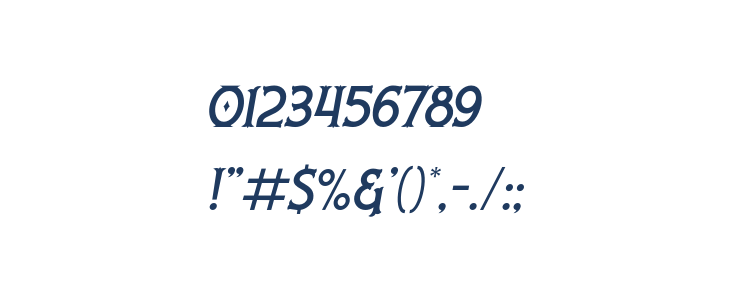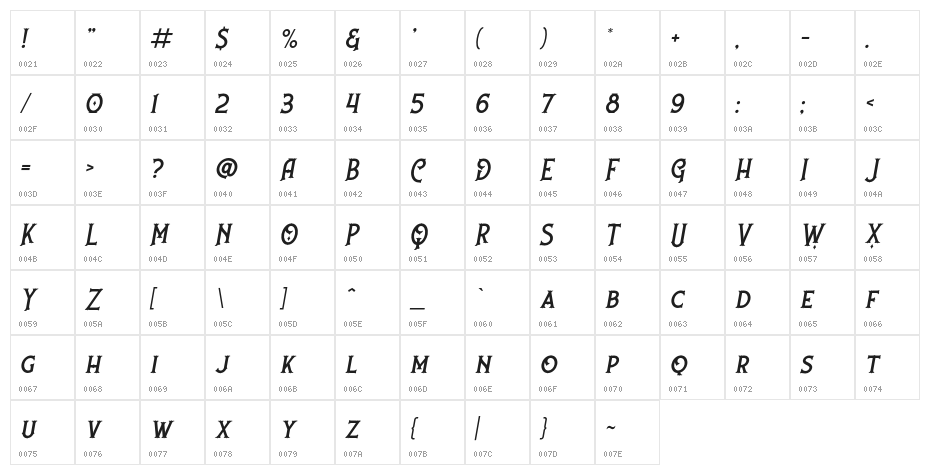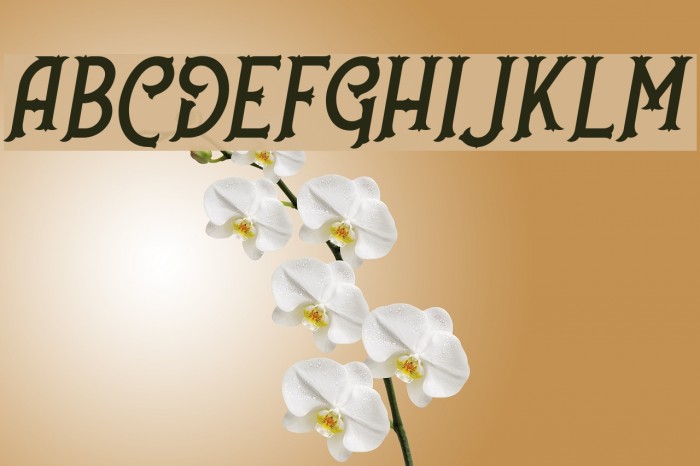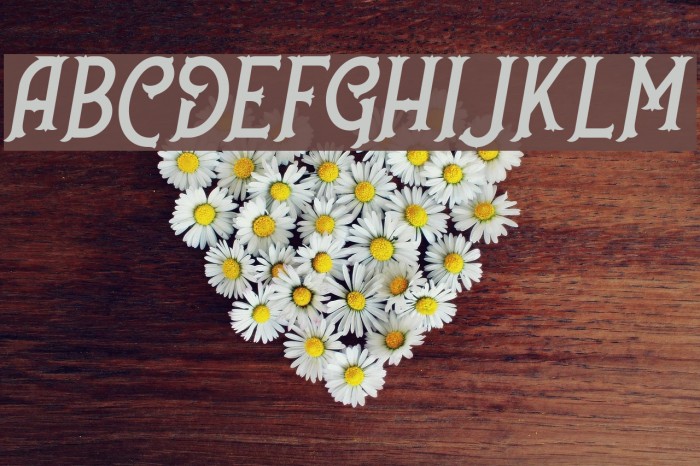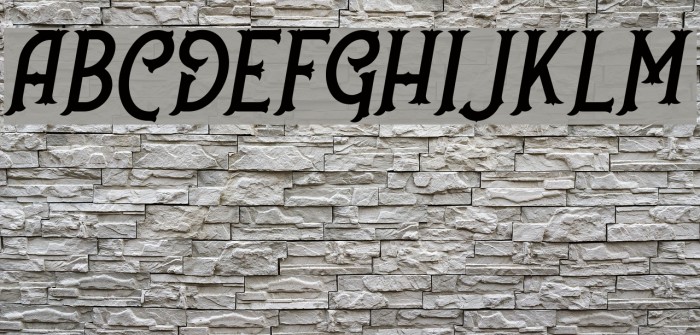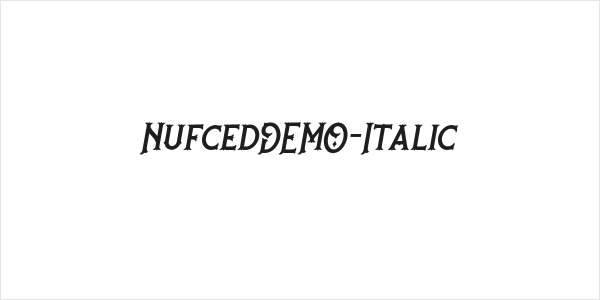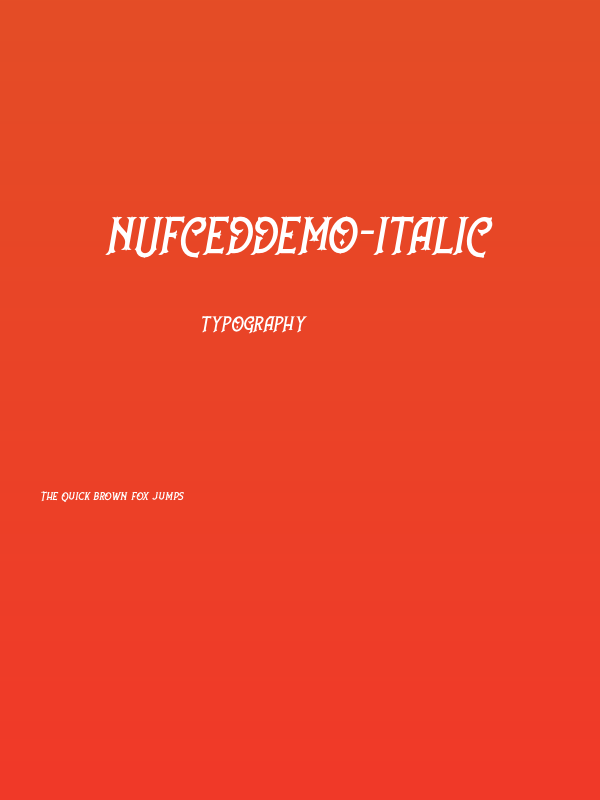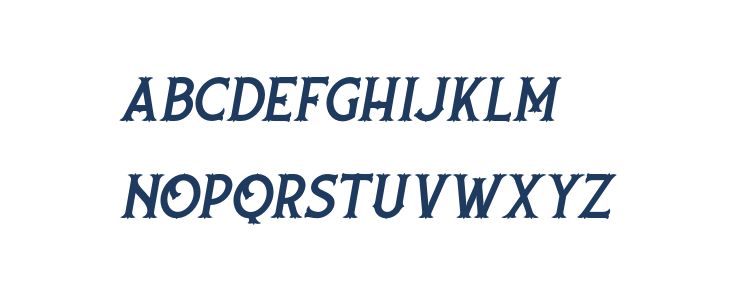
NufcedDEMO-Italic Font
NufcedDEMO-Italic Description
This font features a bold and dynamic design with a distinct italic slant, giving it a sense of movement and energy. The characters are adorned with sharp, angular serifs that add a touch of elegance and sophistication. The uppercase letters are particularly striking, with their elongated forms and pronounced curves. The lowercase letters maintain the same stylistic elements, ensuring consistency throughout the typeface. Numbers and special characters are crafted with the same attention to detail, making them easily legible while retaining the font's unique style. The overall appearance is both modern and classic, suitable for a variety of design applications.
| Proposed Projects | Ideal for branding, headlines, posters, and any project requiring a bold, elegant typeface. |